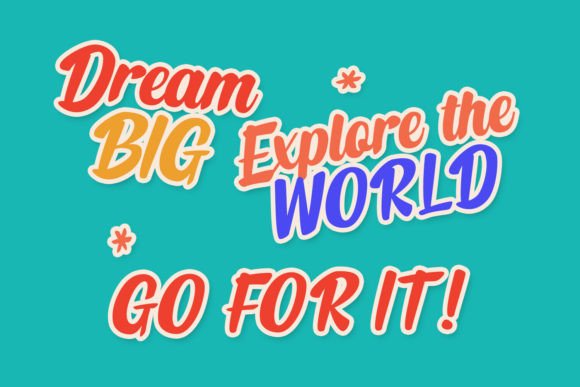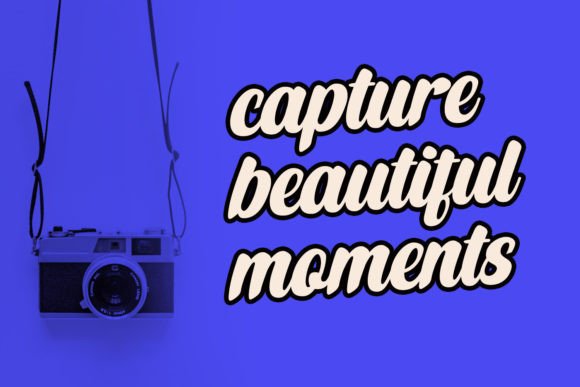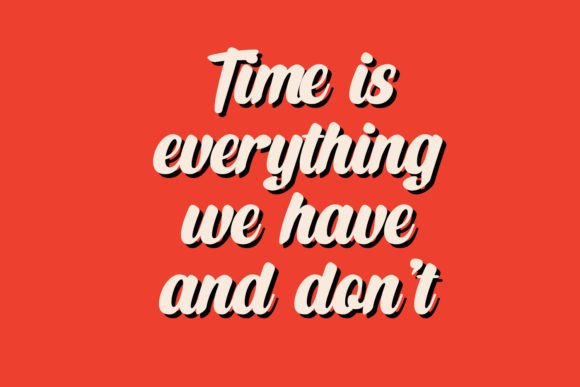
Introduction to Holing Font
As a designer, there’s nothing quite like the thrill of bringing a creative project to life. You’ve poured your heart and soul into every detail, from the initial concept to the final touches. But sometimes, it’s the smallest elements that can make the biggest impact. That’s where the Holing Font comes in – a stunning script font that adds a touch of elegance and sophistication to any design.
With its vintage appeal and flowing letterforms, the Holing Font is a design resource that’s hard to resist. Whether you’re looking for a free download or a high-quality font to elevate your next project, this versatile font is sure to impress. Its transparent background and delicate details make it the perfect choice for designers who crave a unique and eye-catching look.
Key Features of Holing Font
- High-quality design resource with a transparent background, ideal for creative projects
- Font size: 1,000 characters, including uppercase, lowercase, numbers, and special characters
- Resolution: High-resolution design suitable for use on various mediums, including print and digital applications
- Unique characteristics include a modern, minimalist aesthetic and a wide range of font styles and weights
- Perfect for designers and artists looking for a versatile and easy-to-use design resource
Honest Review: Holing Font
I recently came across the Holing Font, and I must say it’s a pretty interesting addition to my design resource library. The free download made it an instant hit with me, and I was eager to put it to the test in my next creative project.
- Unique and quirky design: The Holing Font has a distinctive style that can add a touch of whimsy to any design.
- High quality: The font is crisp and clear, making it perfect for a wide range of applications, from digital design to print materials.
- Transparent background: This feature allows for seamless integration with other design elements, making it a great choice for designers who want to create visually appealing compositions.
- Limited character set: Unfortunately, the Holing Font only includes a limited set of characters, which may not be suitable for complex texts or long-form content.
- No bold or italic options: While the font is great for casual use, it lacks the bold and italic variations that are often necessary for emphasis.
Overall, I’d say the Holing Font is a great addition to any designer’s library, but it may not be the best choice for every project. Its unique style and high quality make it perfect for creative projects where a bit of personality is needed. Just be aware of its limitations and plan accordingly.
Holing Font
What is Holing Font?
Holing Font is a unique and creative design resource that offers a high-quality font with a transparent background, perfect for adding a touch of elegance to your next project.
Tips for Getting the Most Out of Holing Font
For the best results, use Holing Font with a high-contrast background to make the font stand out. You can also experiment with different font sizes and styles to create a unique look.
Common Use Cases for Holing Font
Holing Font is perfect for creative projects, such as graphic design, web design, and branding. It’s also great for adding a touch of elegance to business documents and presentations.